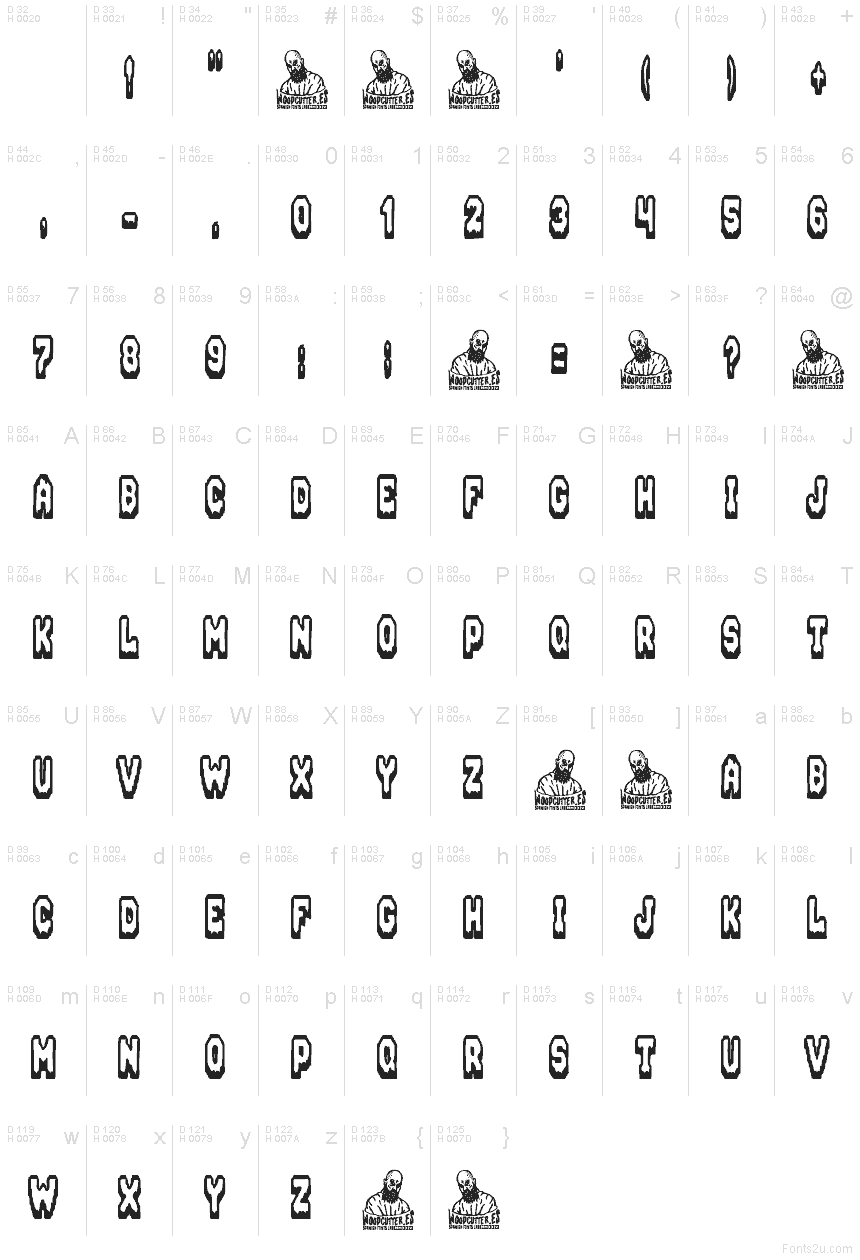
Bloody Bunny
Bloody Bunny font by Woodcutter is a free scary display typeface. Its chunky, inky shapes sag into drips and puddles, giving every word a sticky, cartoon-slasher punch. The letters feel hand-cut and a little uneven, so headlines look raw and loud rather than polished—great when you want fun and fright in the same breath.
Using Bloody Bunny, you can nail Halloween posters, haunted house flyers, slasher movie titles, spooky party invites, escape-room branding, and horror game covers. This free font loves big sizes and generous spacing so the drips read cleanly. Pair it with a plain geometric sans for body text to keep the chaos in the headline where it belongs.